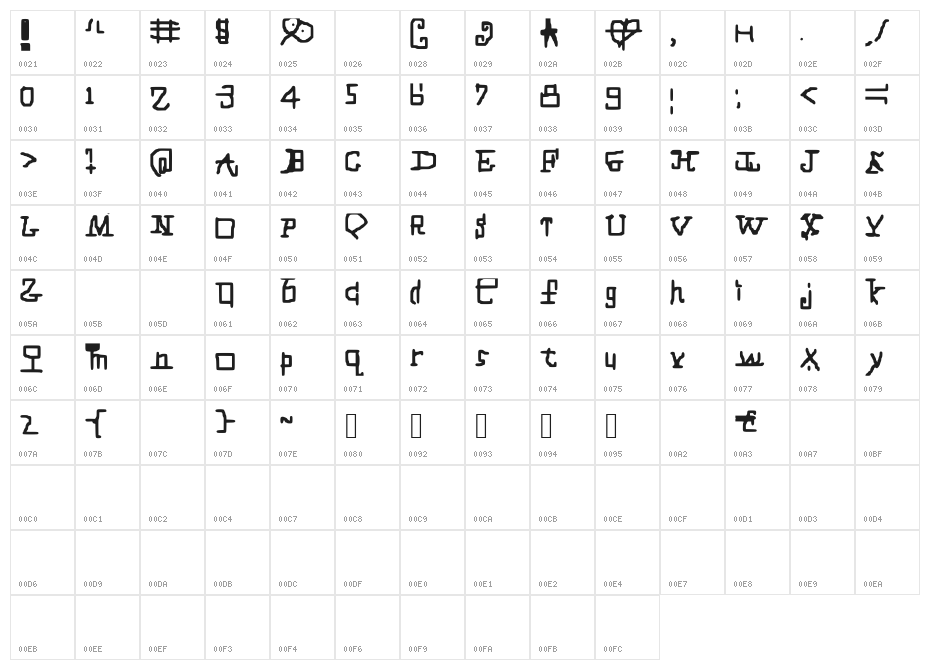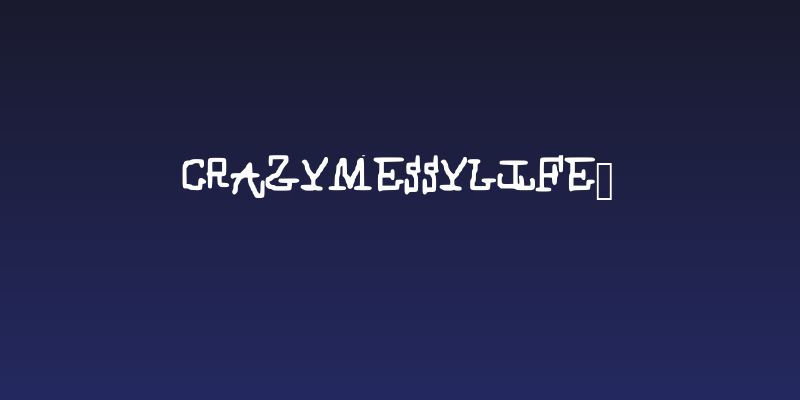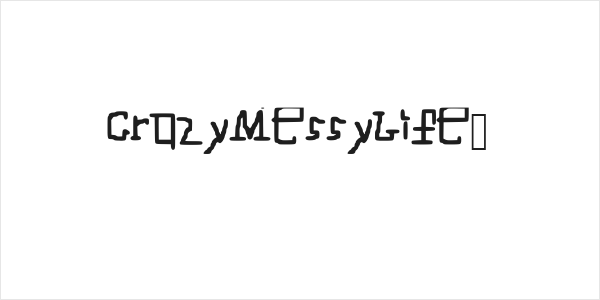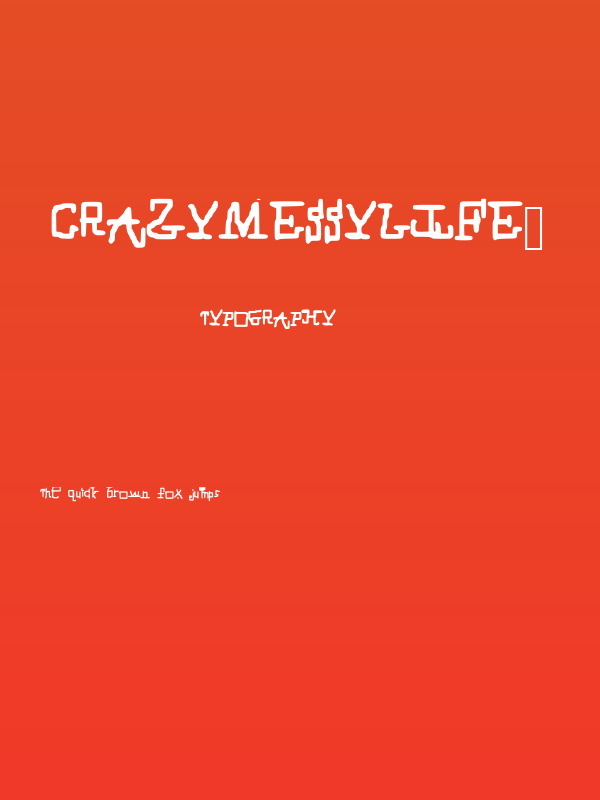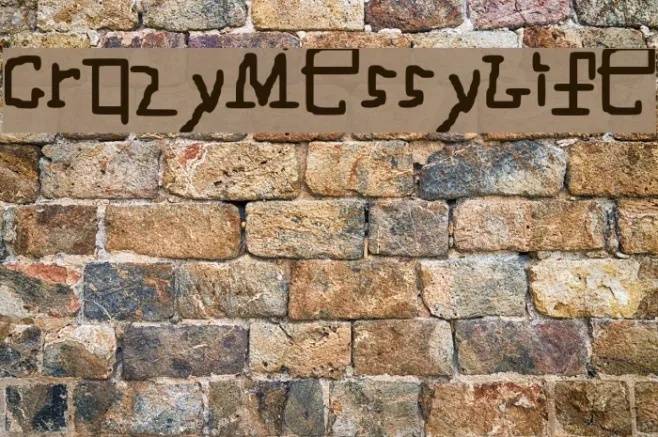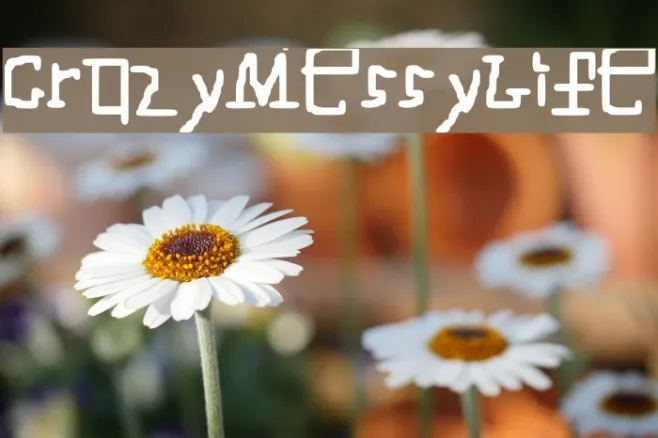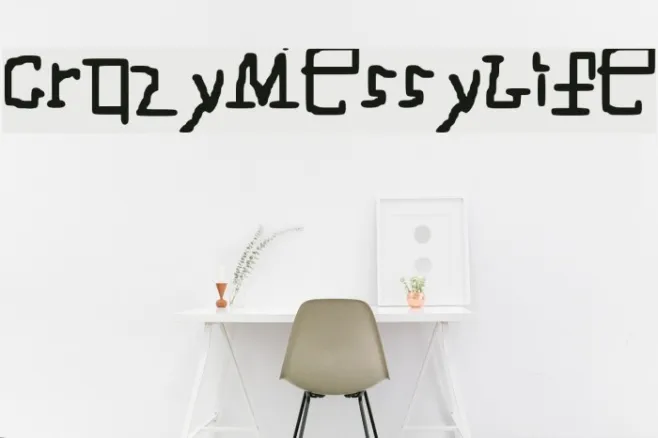
CrazyMessyLife_ Font
CrazyMessyLife_ Description
This font exhibits a unique and playful style with a hand-drawn appearance, characterized by irregular and uneven strokes that give it a whimsical and artistic feel. The letters are bold and somewhat distorted, with varying thicknesses and quirky shapes that create a sense of movement and energy. The uppercase and lowercase letters maintain a consistent style, while the numbers and special characters add to the font's eclectic nature. The overall design is reminiscent of graffiti or street art, making it ideal for projects that require a bold and unconventional look.
| Overall Style | Artistic, Whimsical |
| Use Case | Headlines, Artistic Branding, Posters |
| Proposed Projects | Ideal for creative projects such as posters, album covers, children's books, and artistic branding. |